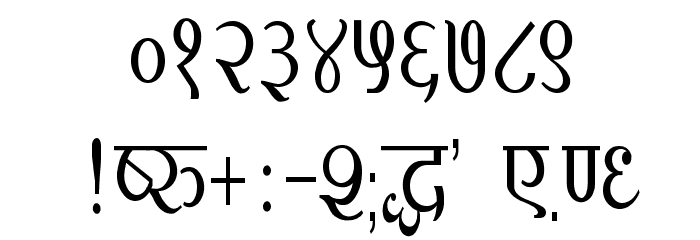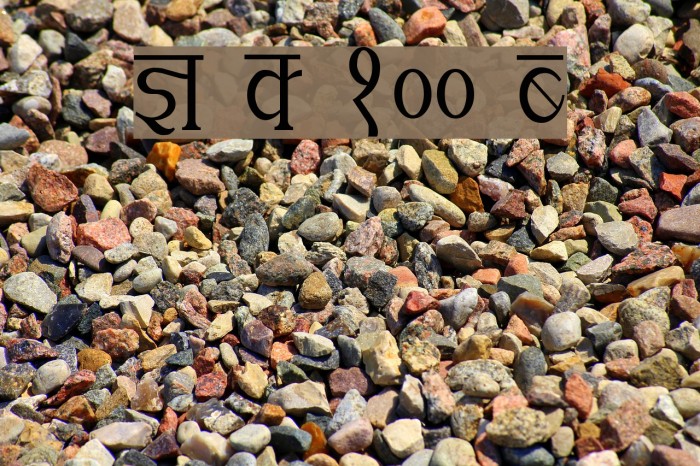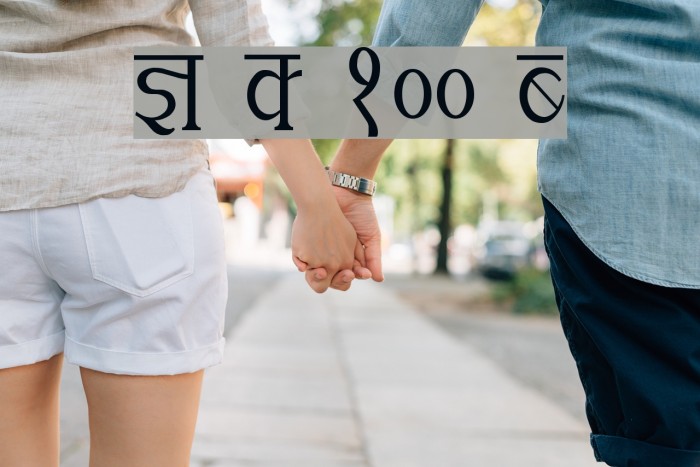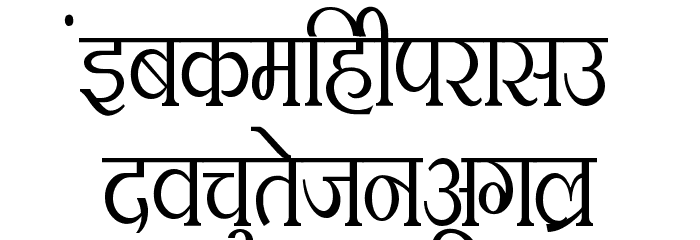
Kruti Dev 100 Condensed Font
Kruti Dev 100 Condensed Description
This font features a traditional Devanagari script style, characterized by its intricate and decorative letterforms. The characters exhibit a condensed structure, which allows for efficient use of space while maintaining legibility. The strokes are moderately thick, providing a balanced contrast that enhances readability. The font includes a full set of Devanagari characters, numerals, and a selection of punctuation marks, making it versatile for various types of content. The overall appearance is classic and formal, suitable for documents that require a traditional aesthetic.
| Width | Condensed |
| Overall Style | Classic |
| Use Case | Headlines, Body text, Cultural documents |
| Proposed Projects | Ideal for formal documents, traditional publications, cultural event materials, and educational content in Devanagari script. |